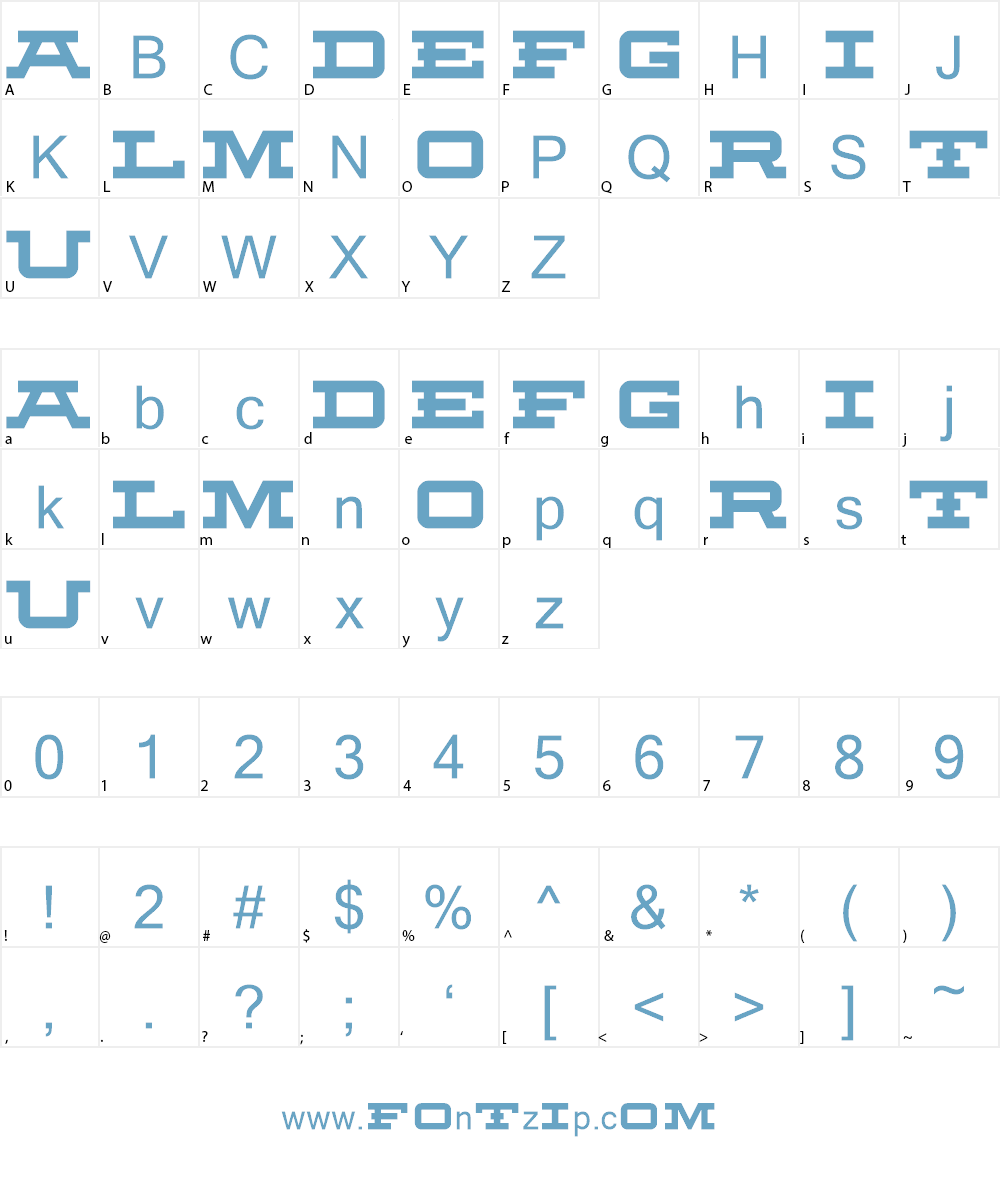
Fortitude is an expanded slab serif typeface with a rustic, western vibe. Fortitude is based on an unpublished thinline typeface Canyonero, that may or may not see the light of day! We pulled out all the stops on Fortitude and added a ton of punctuation to make the typeface as useful as possible. Total glyph count is at 353!